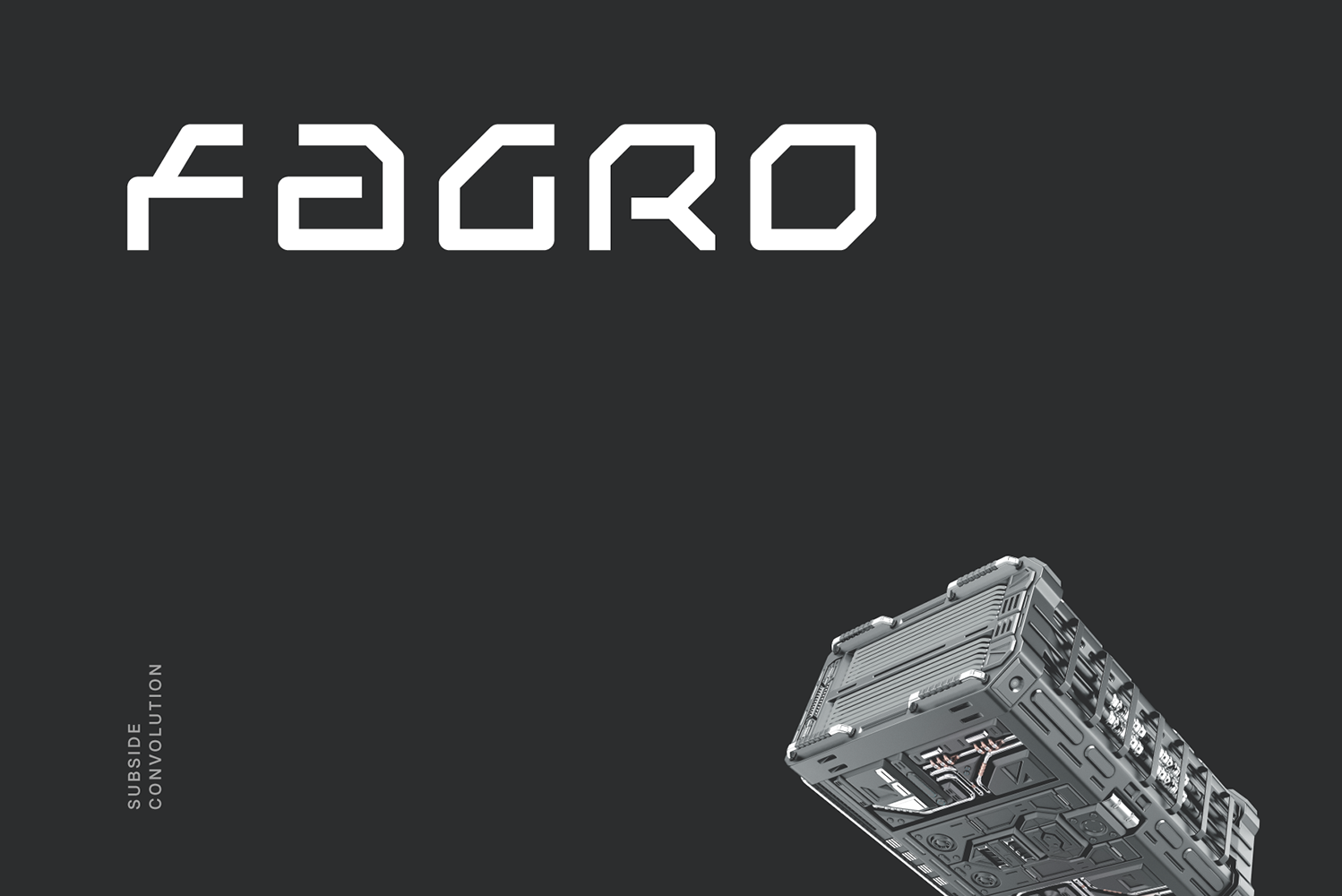
Fagro Futuristic Tech Font
Fagro is a subside convolution tech display typeface apt for headline, editorial, branding, packaging, printed materials, hud typographic and user interface applications. Ultra modern character blend with simplicity of smooth rigid curves, subliminal contour and monoline interpretation introduced futurism sensuality through restraint form. 150+ glyphs with ligatures and fractions provided in opentype .otf and .woff format.